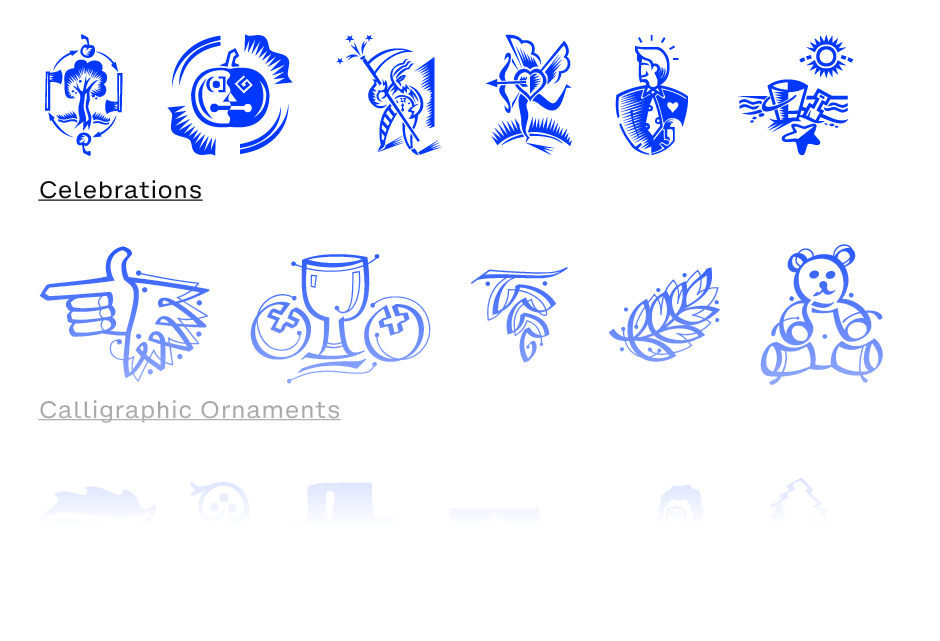
| Holiday cards, party invitations, one-of-a-kind gifts, thank-you notes – the holiday season offers endless chances to create special graphic projects. Seasonally themed image fonts are a great way to personalize your designs and infuse them with festive cheer... | |